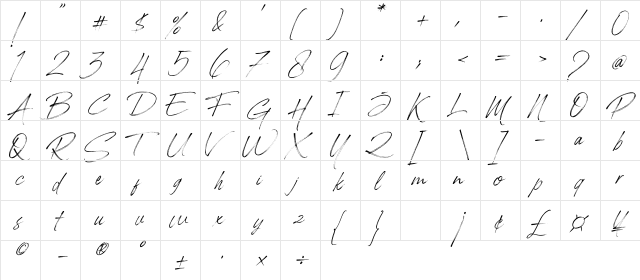
Optimust Italic
Design Context for Optimust Typeface
Optimust is a composed and adaptable typeface that performs quietly and consistently across a wide range of design contexts. The dynamic lean of this cut emphasises speed and emphasis in any layout.
Pro Tip: Use Optimust for emphasis, pull quotes, and subheadings where its slanted energy can add rhythm to the layout.